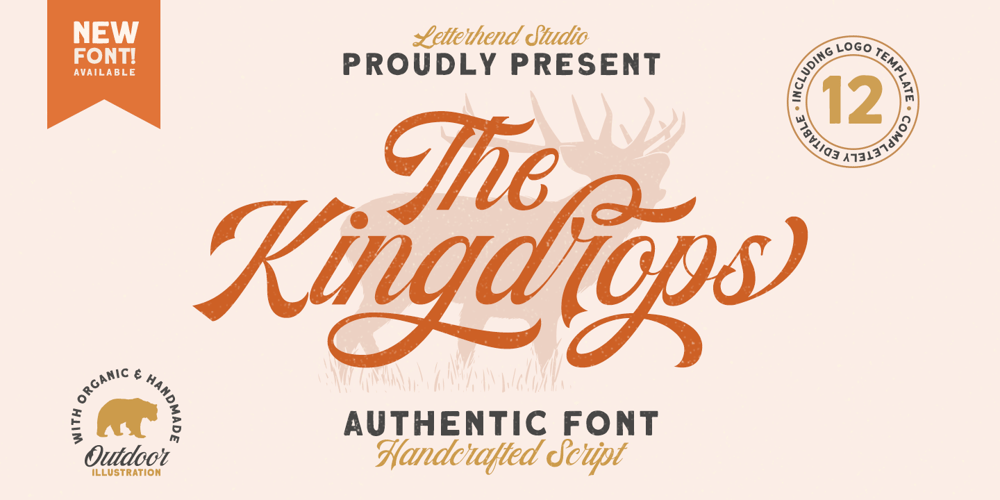
Kingdrops Font Family was designed by Hendry Juanda and published by Letterhend. Kingdrops contains 1 styles and family package options. Kingdrops is a cool script typeface. This font perfectly made to be applied especially in logo, and the other various formal forms such as invitations, labels, logos, magazines, books, greeting / wedding cards, packaging, fashion, make up, stationery, novels, labels or any type of advertising purpose.